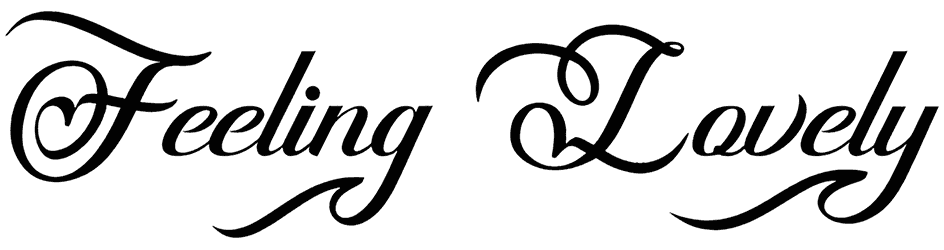
Feeling Lovely Font
Feeling Lovely is a romantic script font that comes with well-rounded curved and crooked characters, thus it can be classified as a holiday font. Due to its unique style, it can be fit for any creative design that needs…
Feeling Lovely is a romantic script font that comes with well-rounded curved and crooked characters, thus it can be classified as a holiday font.
Due to its unique style, it can be fit for any creative design that needs a playful Valentine theme, such as flyers, gift cards, invitations, and greeting cards. Aside from its various usages, you can share a sense of romance, softness, and delicacy with your audience.